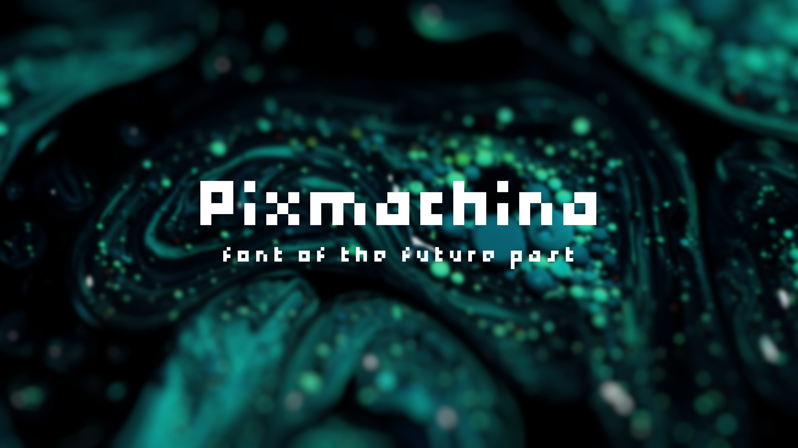
Font name: | Pixmachina |
Author: | DoubleGum |
Note by DoubleGum | |
Pixmachina is a modular typeface built for retro futurists. Its sharp, grid-based forms echo classic arcade displays while adding a modern twist. With a full set of alphabets, numbers, and symbols, Pixmachina is perfect for game UI, sci-fi titles, glitch art, and anything that lives in the space between analog past and digital future. **DEMO VERSION** � Personal license � Only 70 character glyphs � No updates **FULL VERSION** � Commercial license � All 212 character glyphs � Free updates for life Full version is available here: Itch.io: https://doublegumm.itch.io/pixmachina Gumroad: https://doublegum.gumroad.com/l/pixmachina Feel free to follow my work: https://linktr.ee/doublegum |